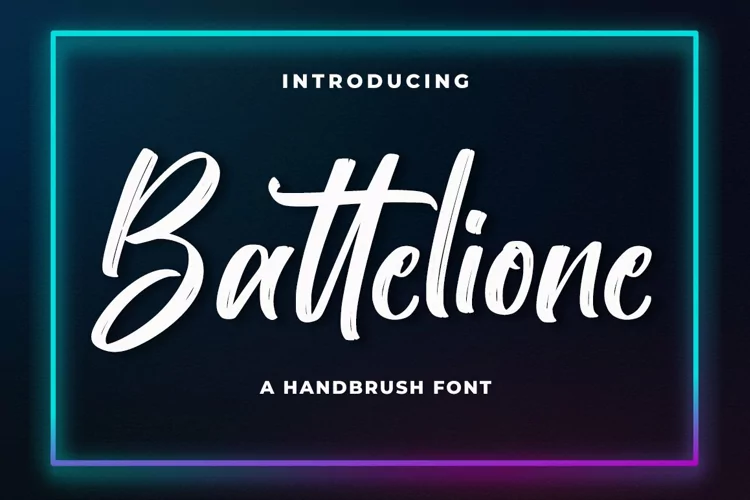
Battelione - Brush Font
Battelione
Battelione is a magical script font carefully created with a touch of elegance. Whether you’re looking for fonts for Instagram or calligraphy scripts for DIY projects, this font will turn any creative idea into a true piece of art!